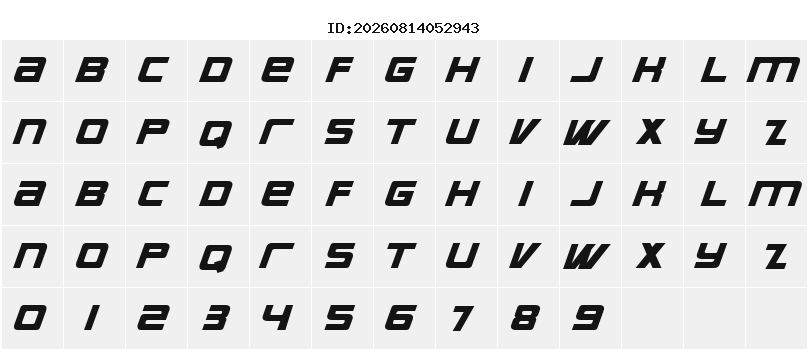
Supreme Preview
About Supreme.ttf
Supreme.ttf is a modern, elegant sans-serif font designed for ultimate readability and visual harmony. Perfect for branding, headlines, web design, and print materials.